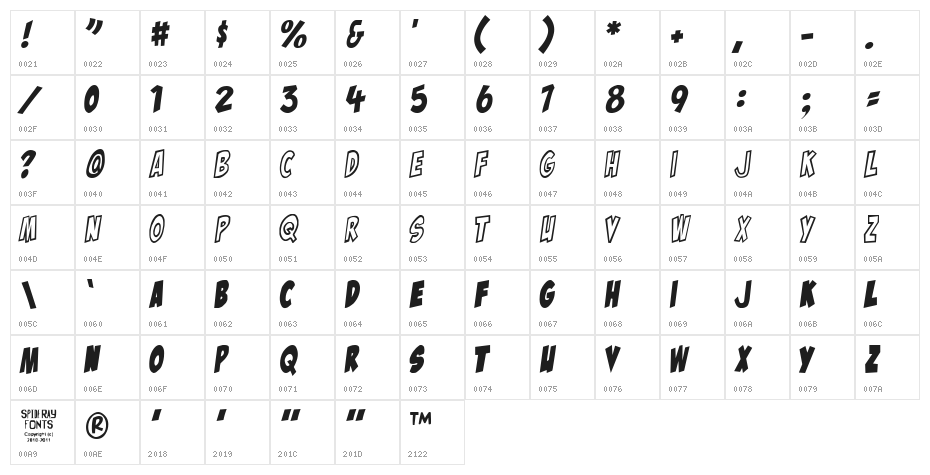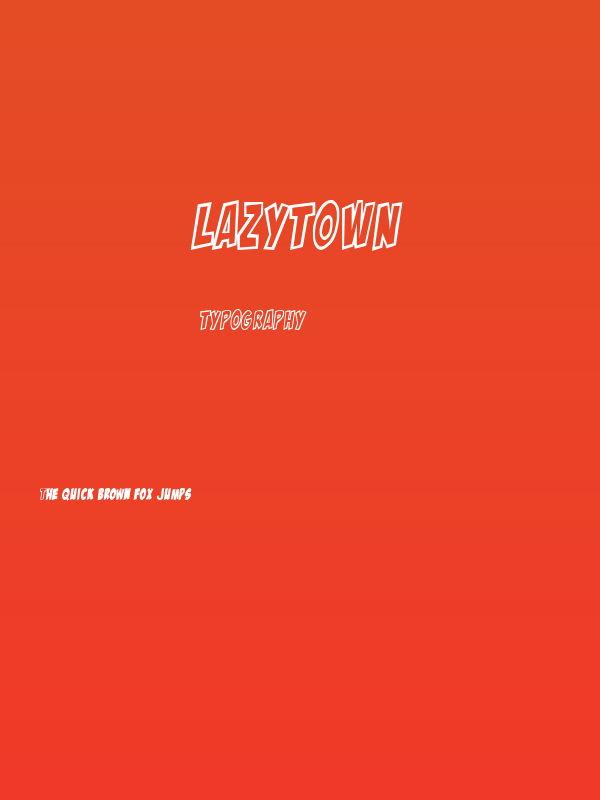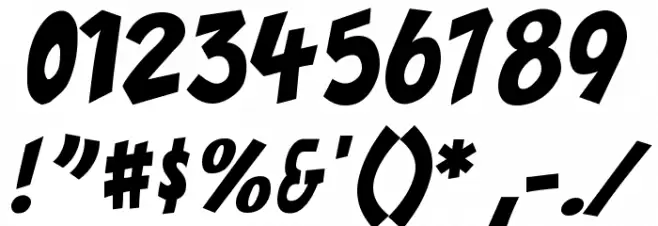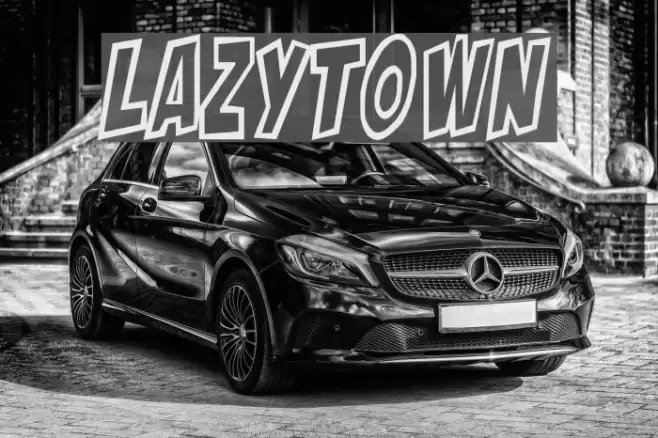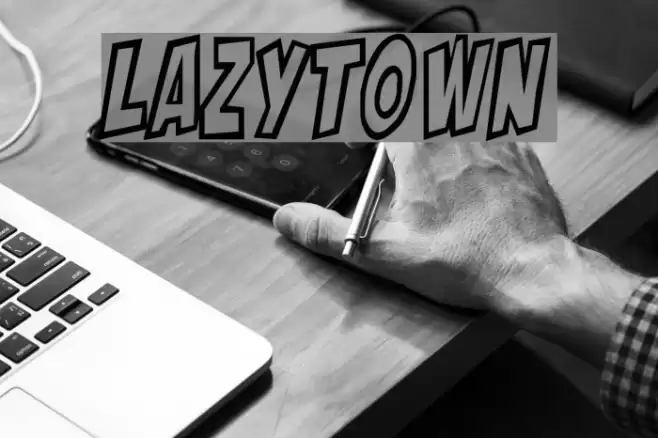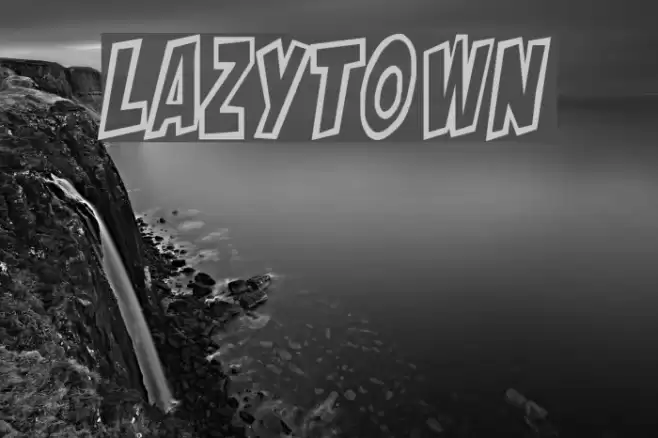
LAZYTOWN Font
LAZYTOWN Description
This font features a bold, dynamic style with a playful and energetic feel. The uppercase letters are characterized by thick strokes and a slightly slanted orientation, giving a sense of movement and excitement. The lowercase letters maintain this lively aesthetic, complementing the uppercase with their bold presence. Numbers and special characters are equally robust, ensuring consistency across all elements. The font's design is reminiscent of comic book lettering, making it ideal for projects that require a fun and engaging visual impact. Its thick, solid lines and exaggerated angles contribute to a sense of boldness and confidence, making it suitable for attention-grabbing headlines and titles.
| Overall Style | Playful, Comic |
| Use Case | Headlines, Posters, Branding |
| Proposed Projects | Ideal for children's book covers, comic strips, playful branding, and eye-catching posters. |